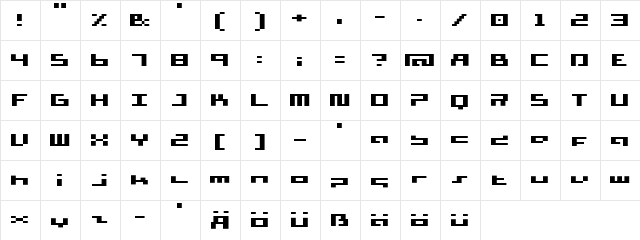
Supersimple Fat
Design Context for Supersimple Typeface
Supersimple is a composed and adaptable typeface that performs quietly and consistently across a wide range of design contexts.
Pro Tip: Pair Supersimple with a font of contrasting weight or personality to build a more expressive typographic hierarchy.